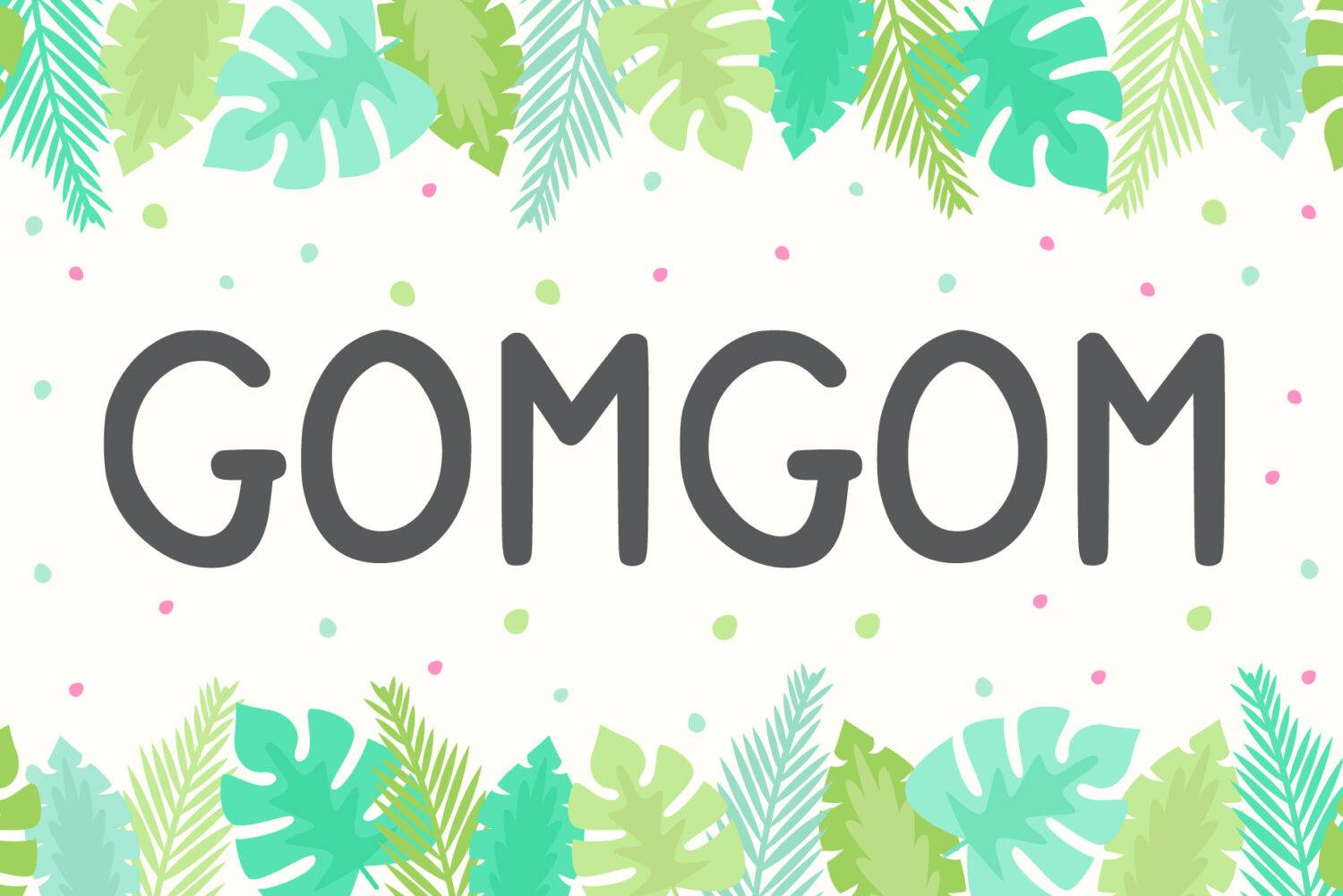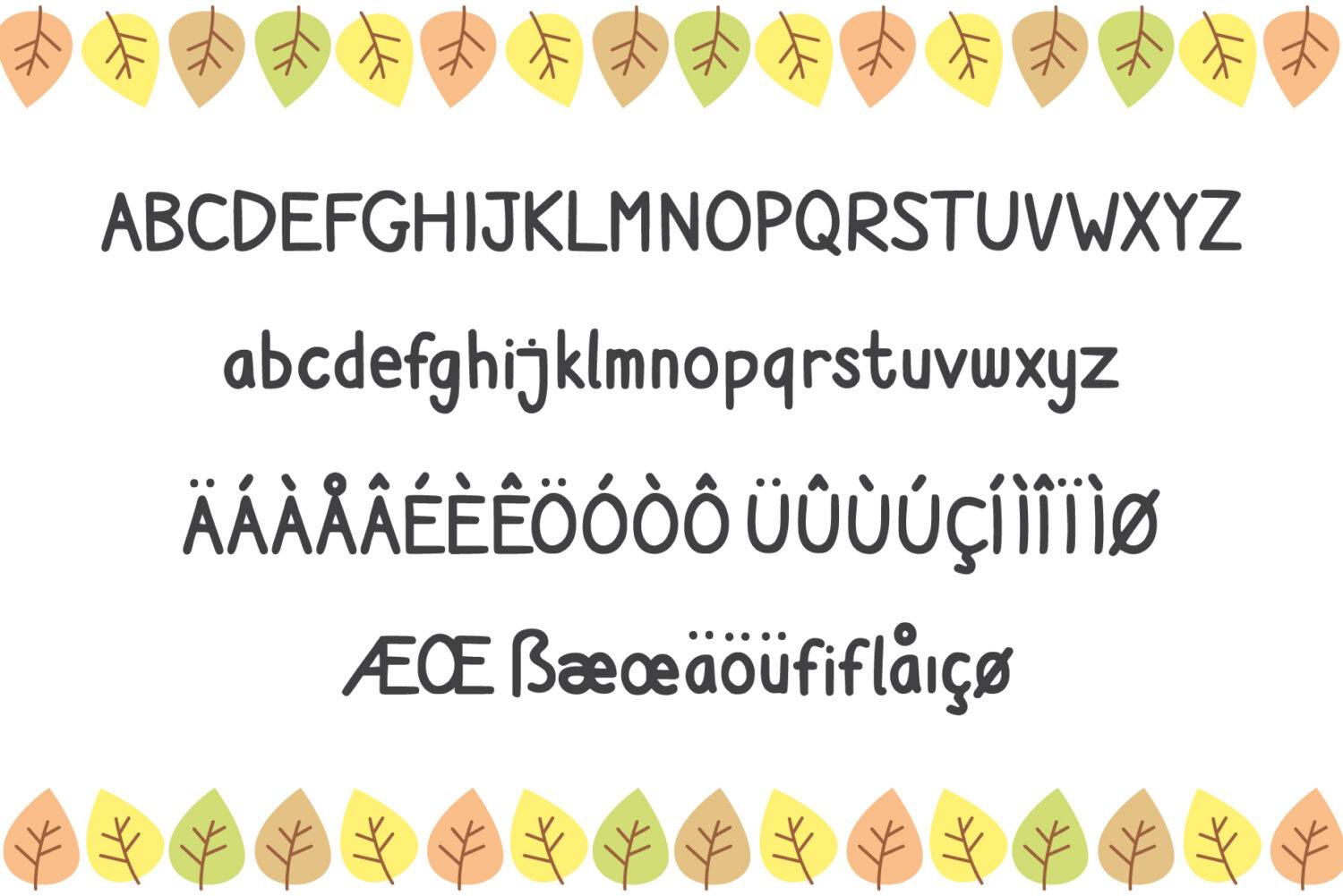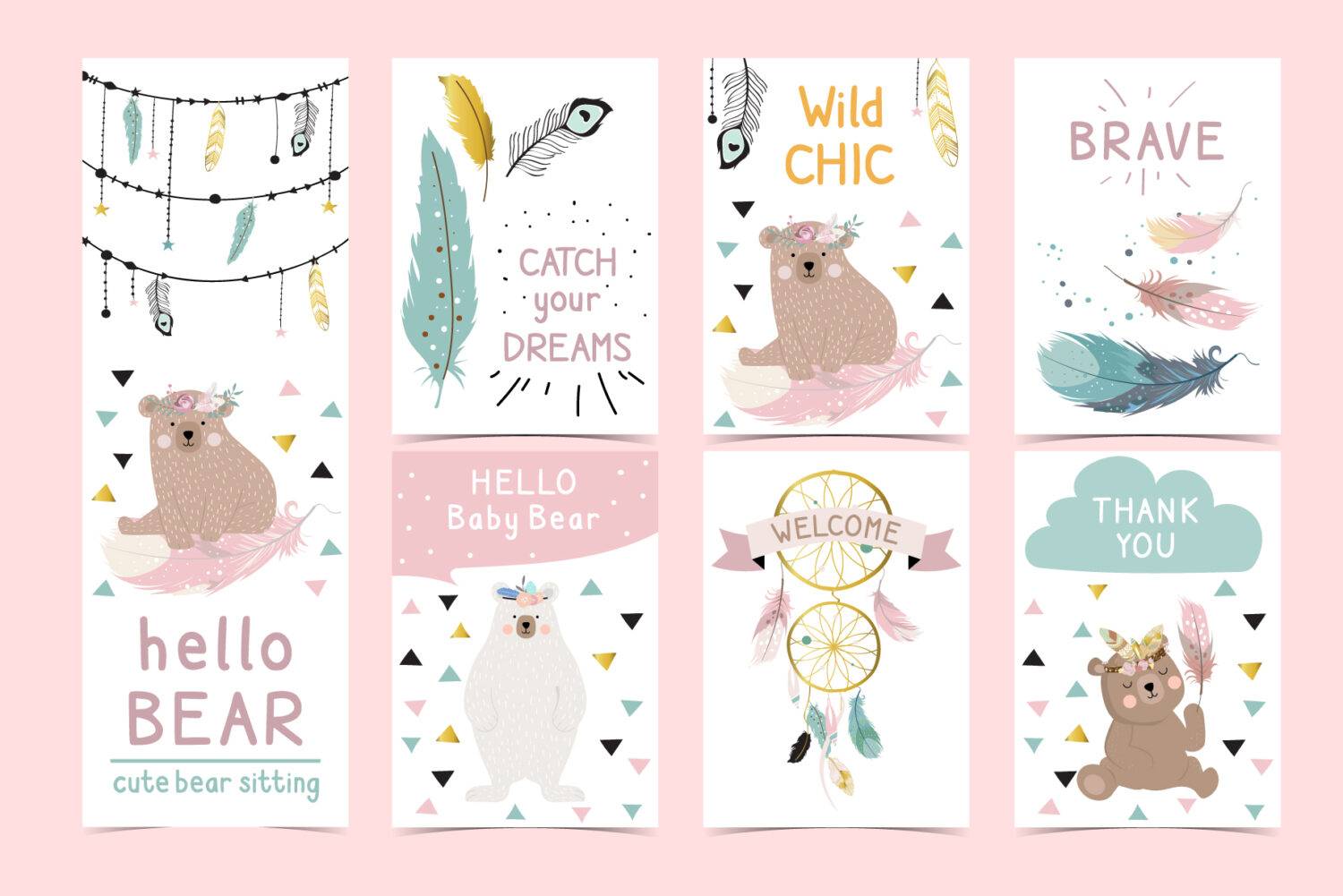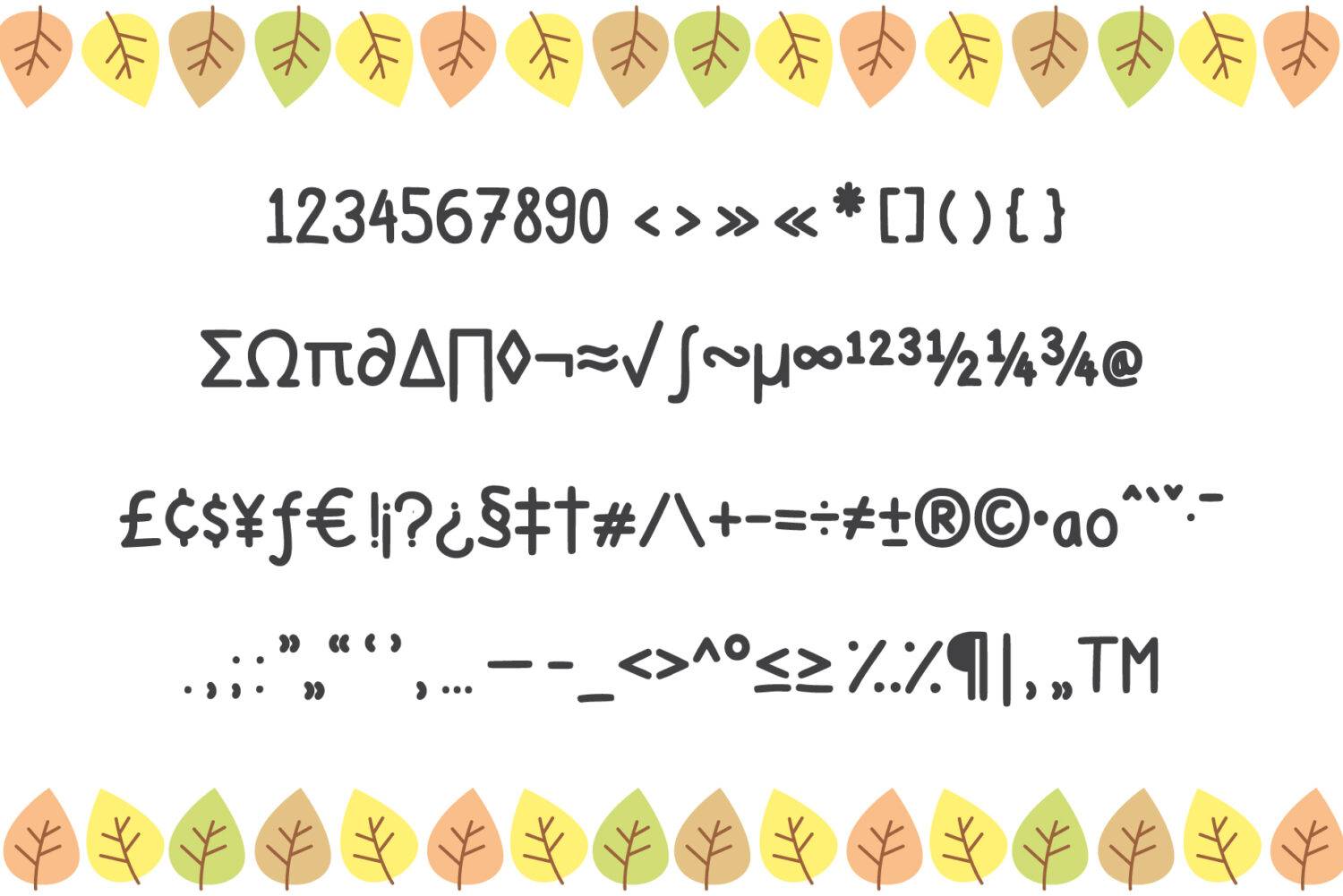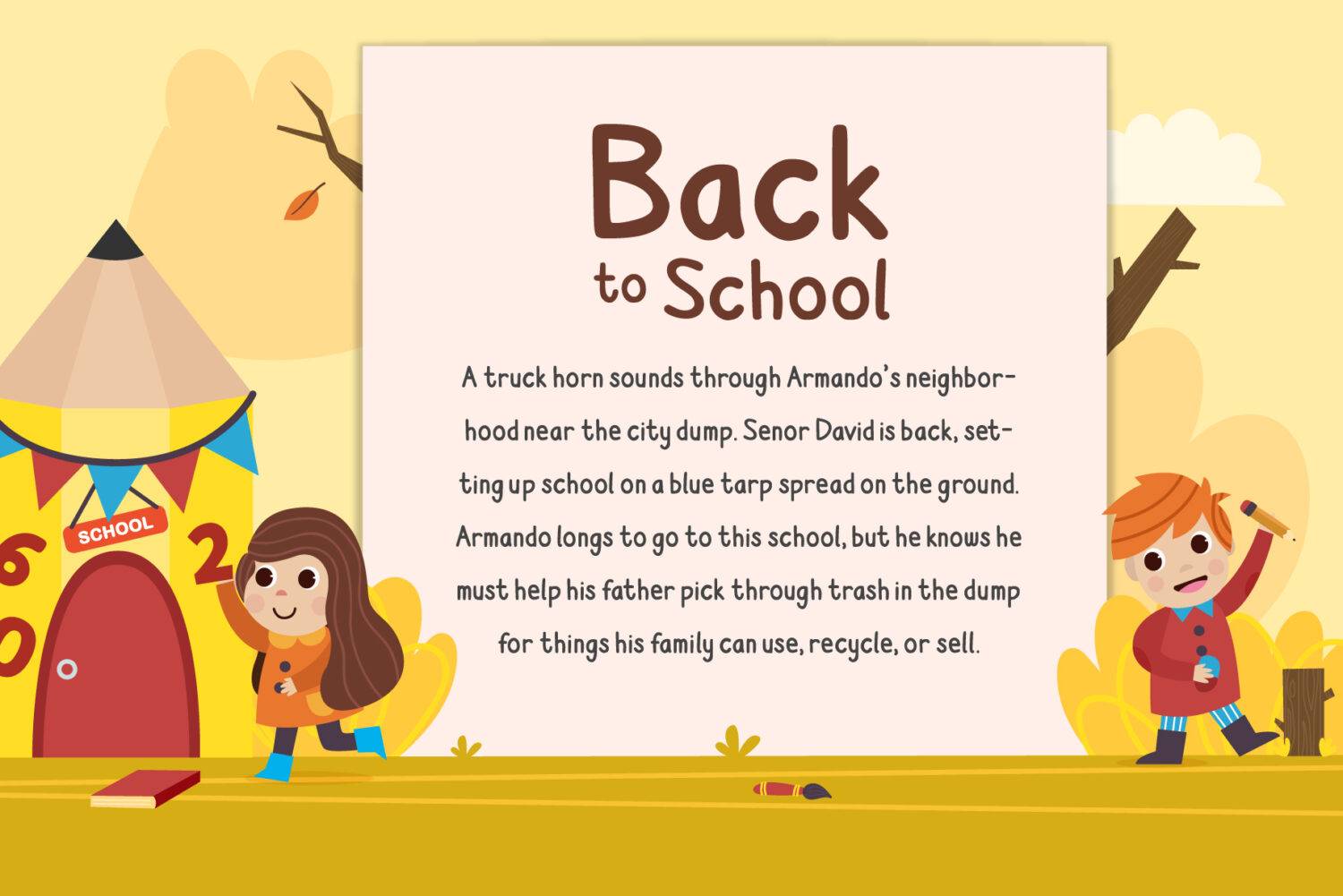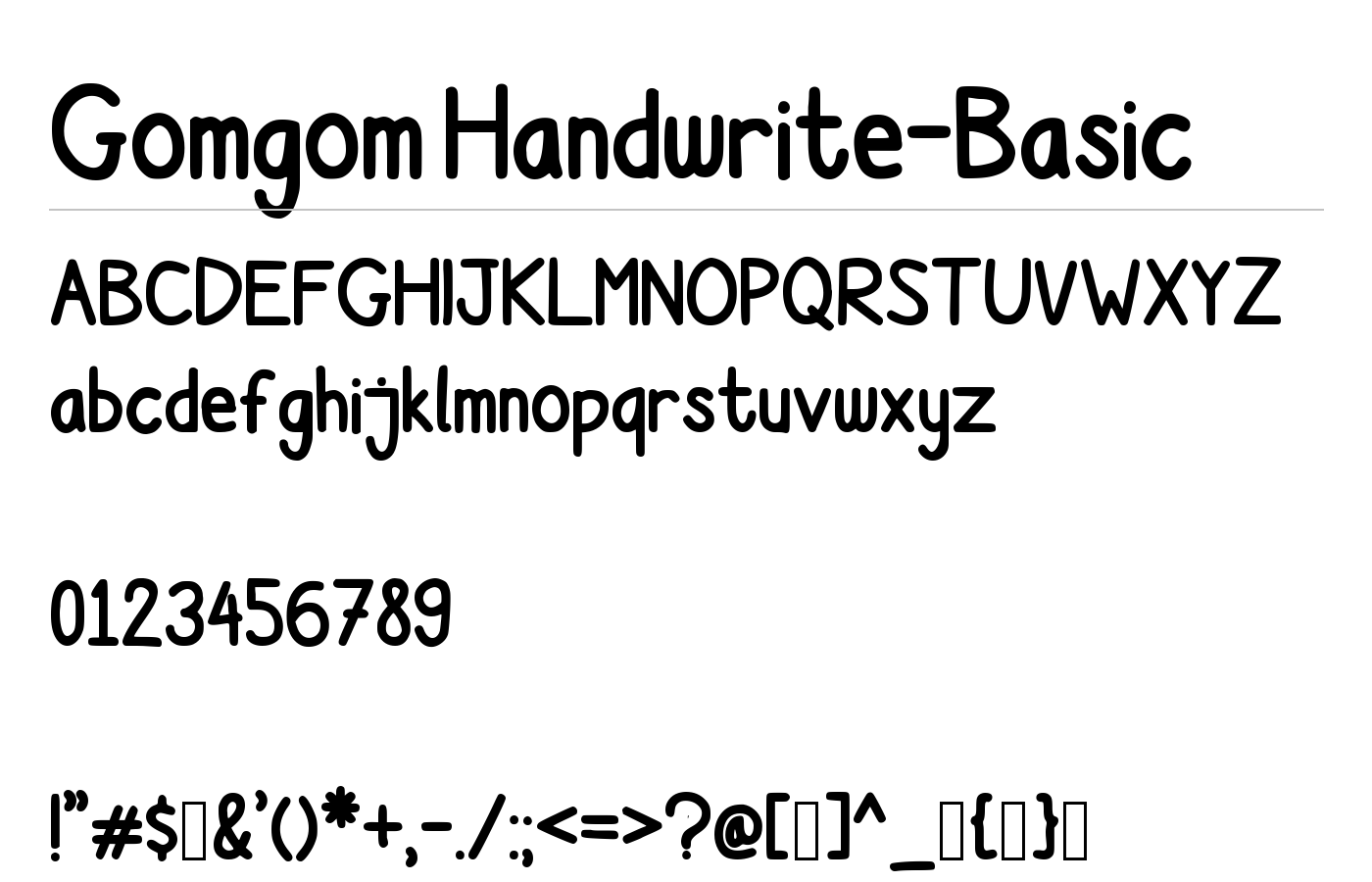
Gomgom Handwrite-Basic is a playful and casual handwritten sans serif font with a friendly, approachable feel. Its rounded, slightly irregular letterforms and moderate x-height create an inviting and informal style, perfect for children’s materials, informal branding, and creative projects seeking a warm, personal touch. This font works well in headlines, logos, and packaging where a fun, handcrafted look is desired.
Gomgom Font
About Gomgom Font